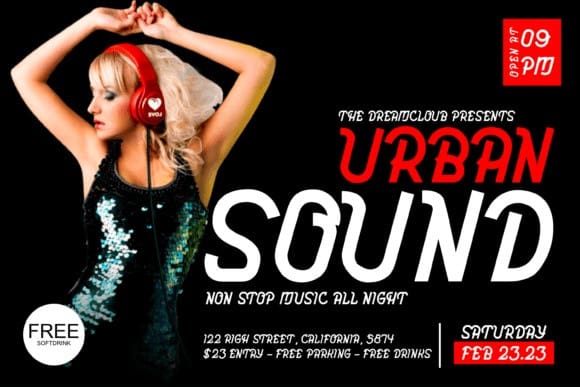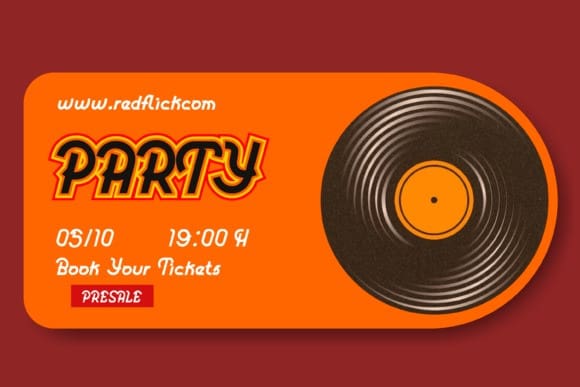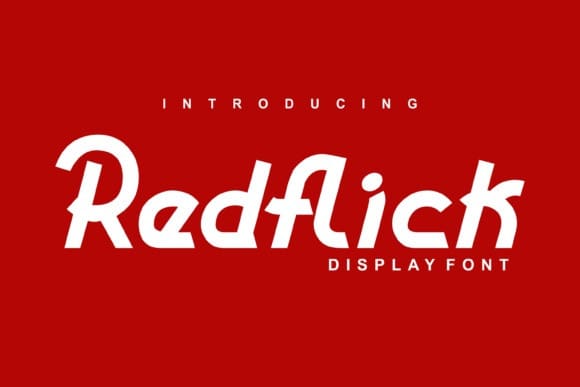
Redflick Font
Redflick Font is a fun display font, with consistent characters and a modern italic style. It has a naughty and unique look. The form has a firm consistency. I’d say that adds to its charm—and it does.
It’s great for headlines and titles, but also very easy to read in sentence form. It’s perfect for branding and packaging, books, invitations, and anything else you want in a casual setting — without being too childish.